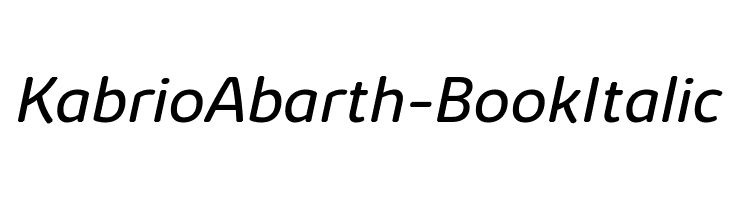
A modern, italicized font with smooth curves and consistent strokes, offering a dynamic and professional look.
A modern, italic font with clean lines and balanced proportions.